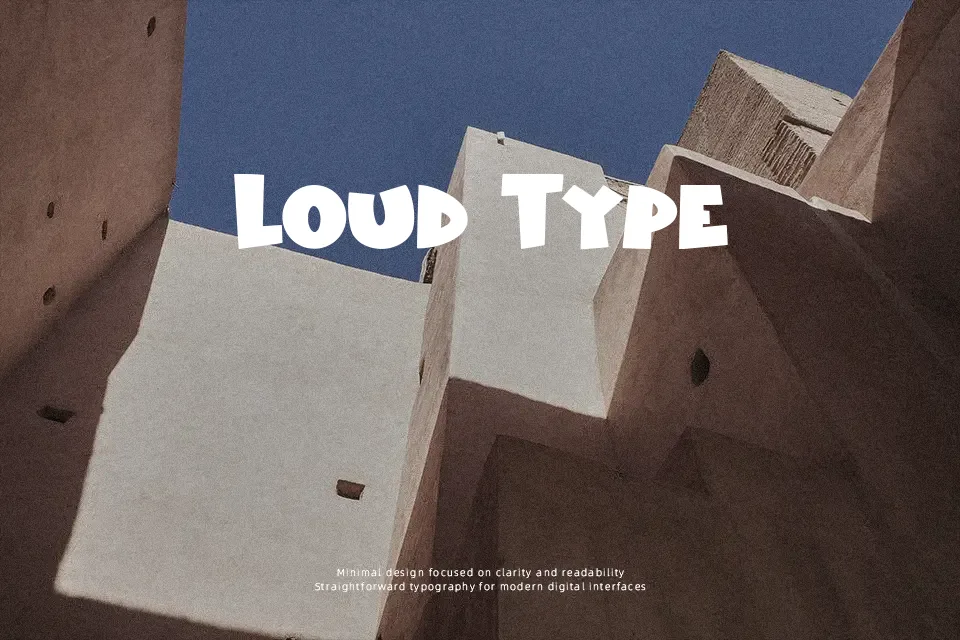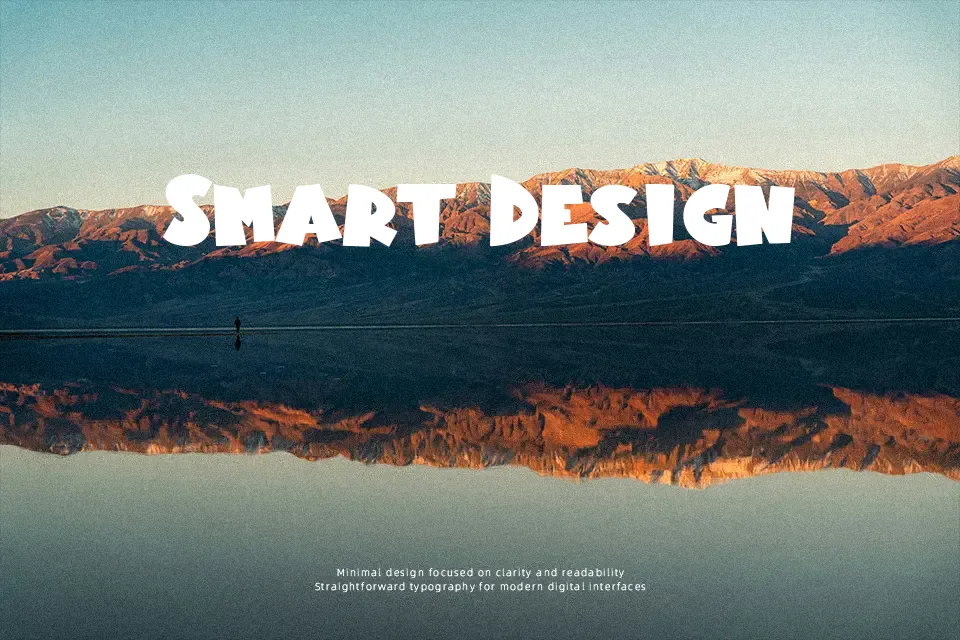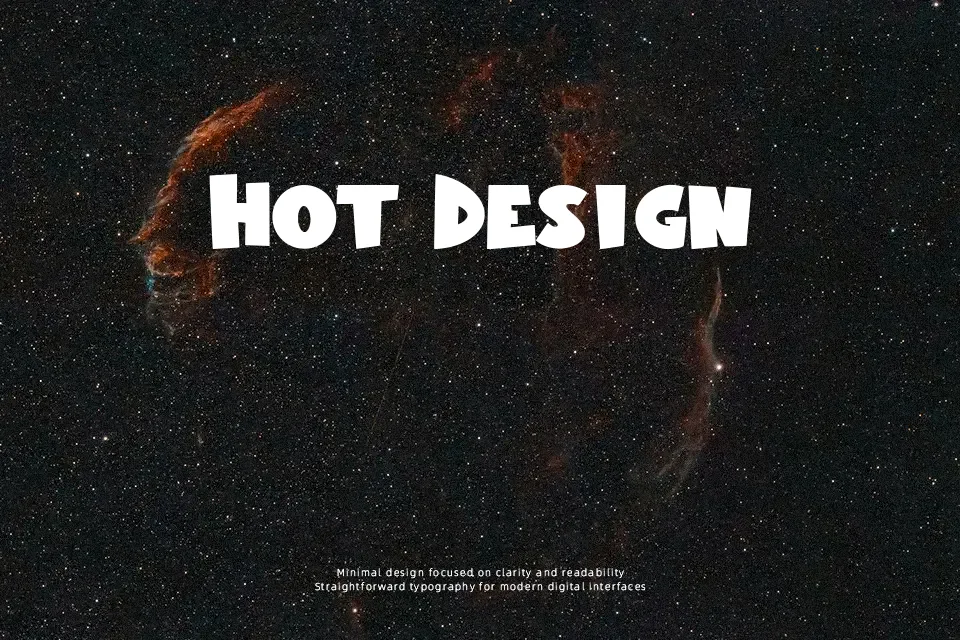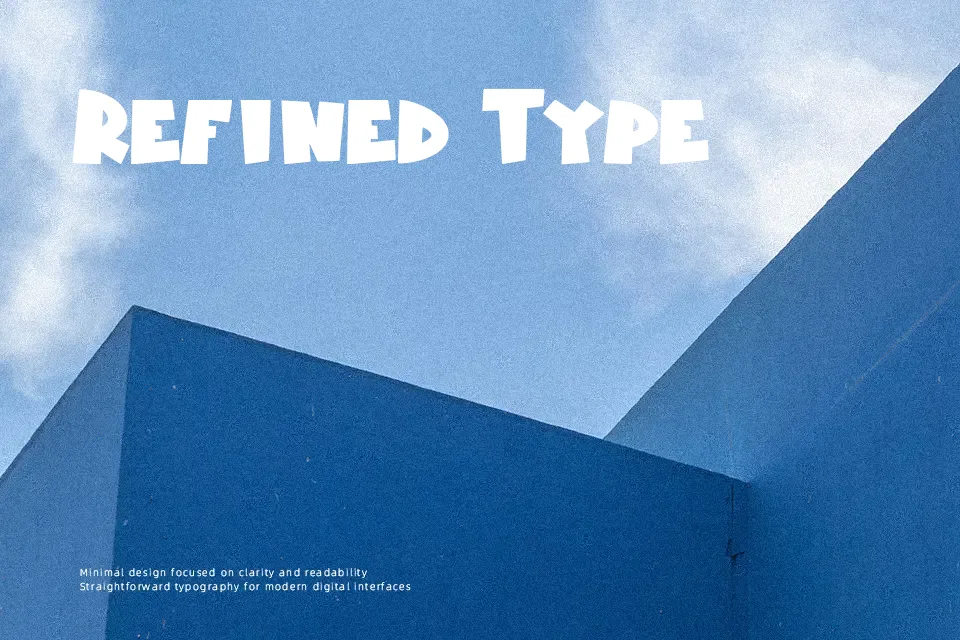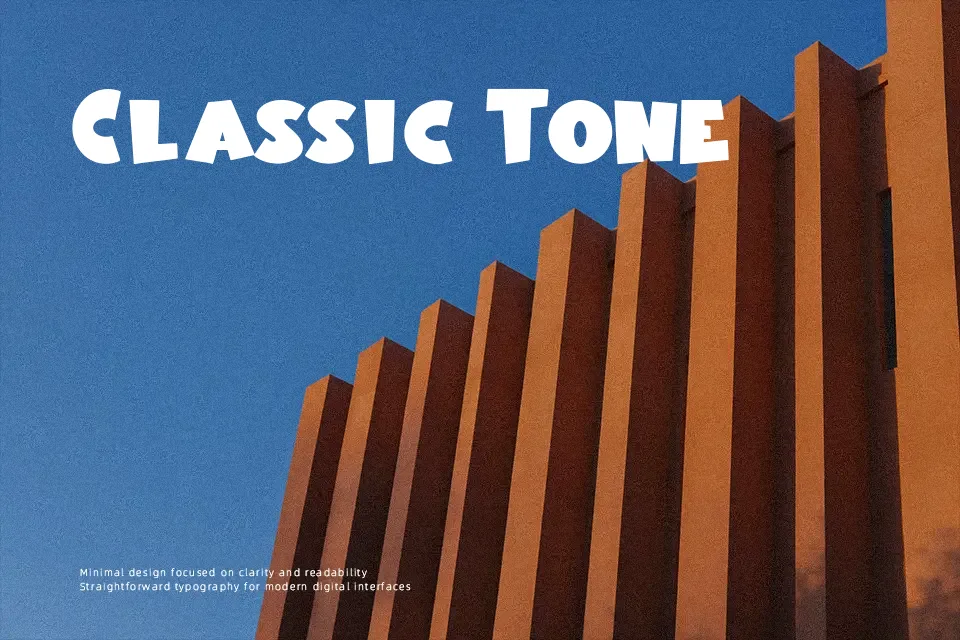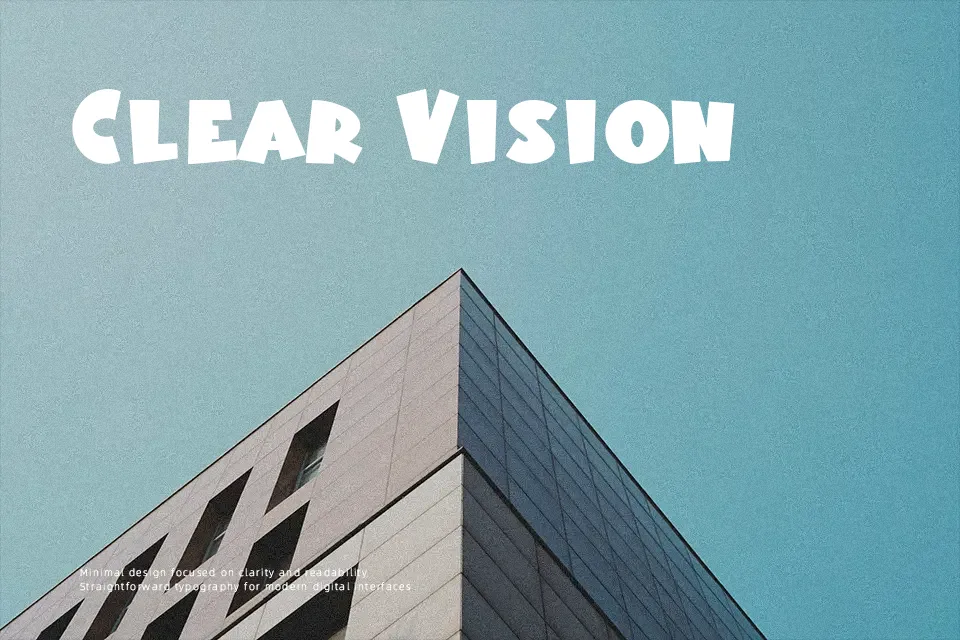
Santa On Duty Font
Santa On Duty Font showcases hefty, rounded silhouettes paired with soft terminal shapes and an informal structural rhythm. The strokes remain uniformly bold throughout, producing substantial presence while maintaining generous inner counters to preserve basic letterform distinction in short headings. Spacing leans compact to create solid visual blocks, though the buoyant baseline bounce keeps character arrangements energetic rather than rigid. While these inflated proportions work reliably across greeting cards and merchandise graphics, the dense stroke weight causes letter interiors to fill in at smaller scales. For sustained reading layouts or fine print labels, this typeface rapidly loses functional clarity.
Best For: holiday greeting cards, seasonal merchandise graphics, party invitation headlines, festive event posters
Not Ideal For: dense body text, technical documentation, mobile interface labels, multi-page documents
Perfect for christmas, headline, and holiday, with a bold and cartoon style.